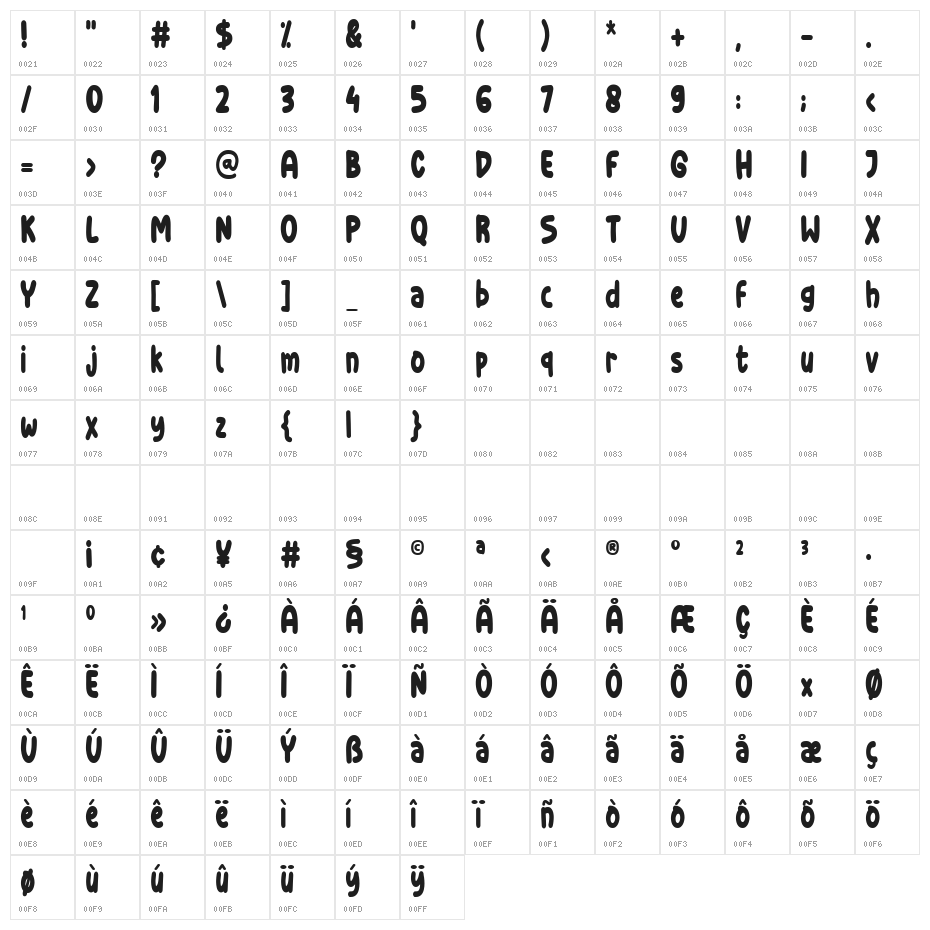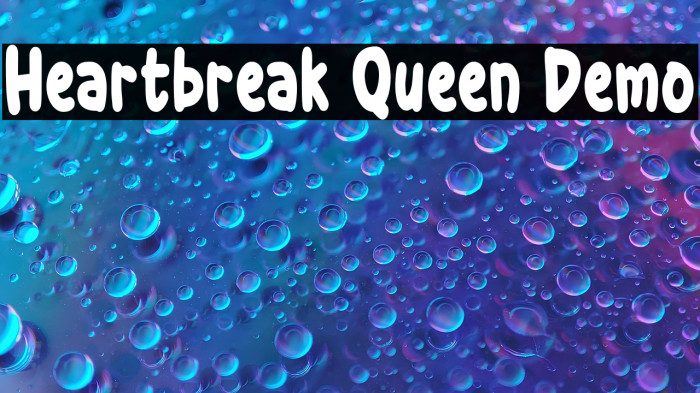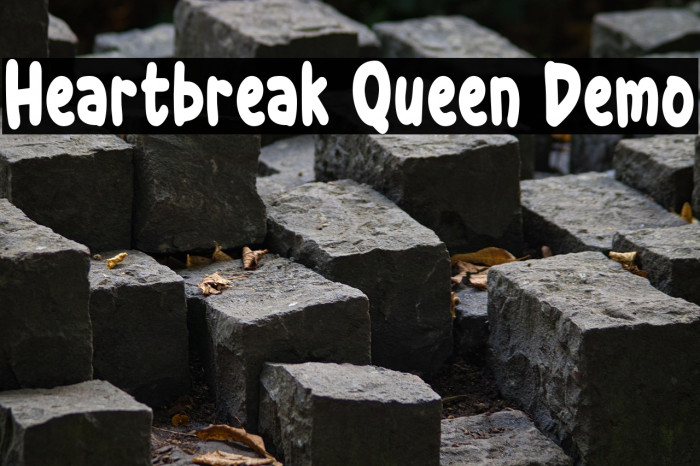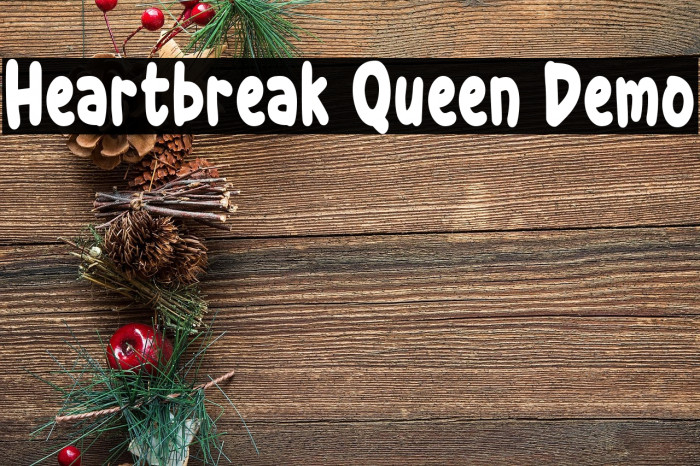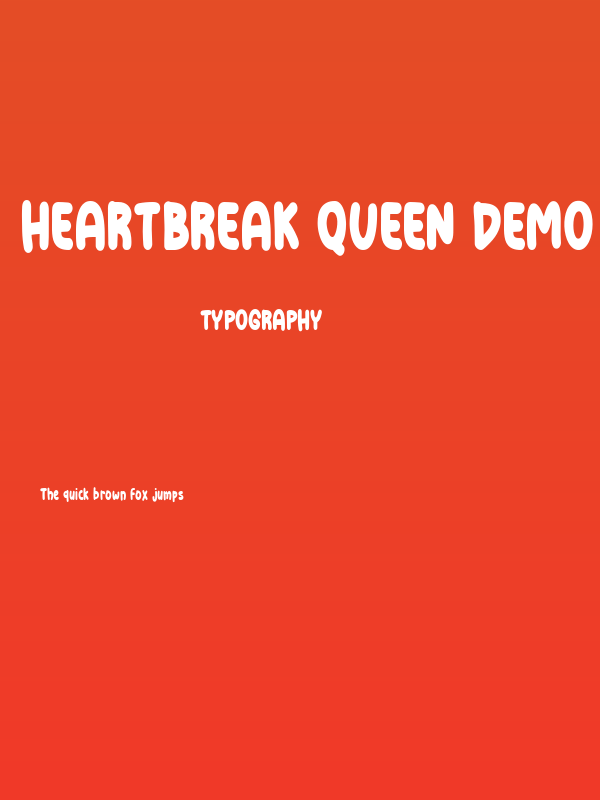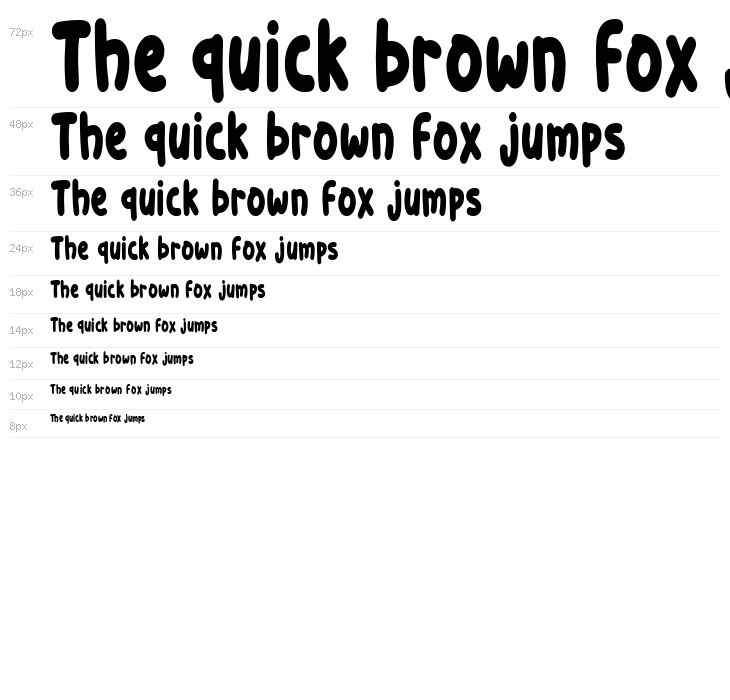
Heartbreak Queen Demo Font
Heartbreak Queen Demo Description
This playful and bold font features rounded, thick strokes that give it a friendly and approachable appearance. The characters are uniformly styled with a consistent thickness, creating a cohesive look across both uppercase and lowercase letters. The numbers and special characters maintain the same whimsical style, making it versatile for various uses. Its boldness ensures high readability, while the rounded edges add a touch of softness, making it suitable for informal and fun projects. The font's design is reminiscent of hand-drawn lettering, adding a personal and unique touch to any text.
| Overall Style | Playful, Hand-drawn |
| Proposed Projects | Ideal for children's books, playful branding, posters, and social media graphics. |